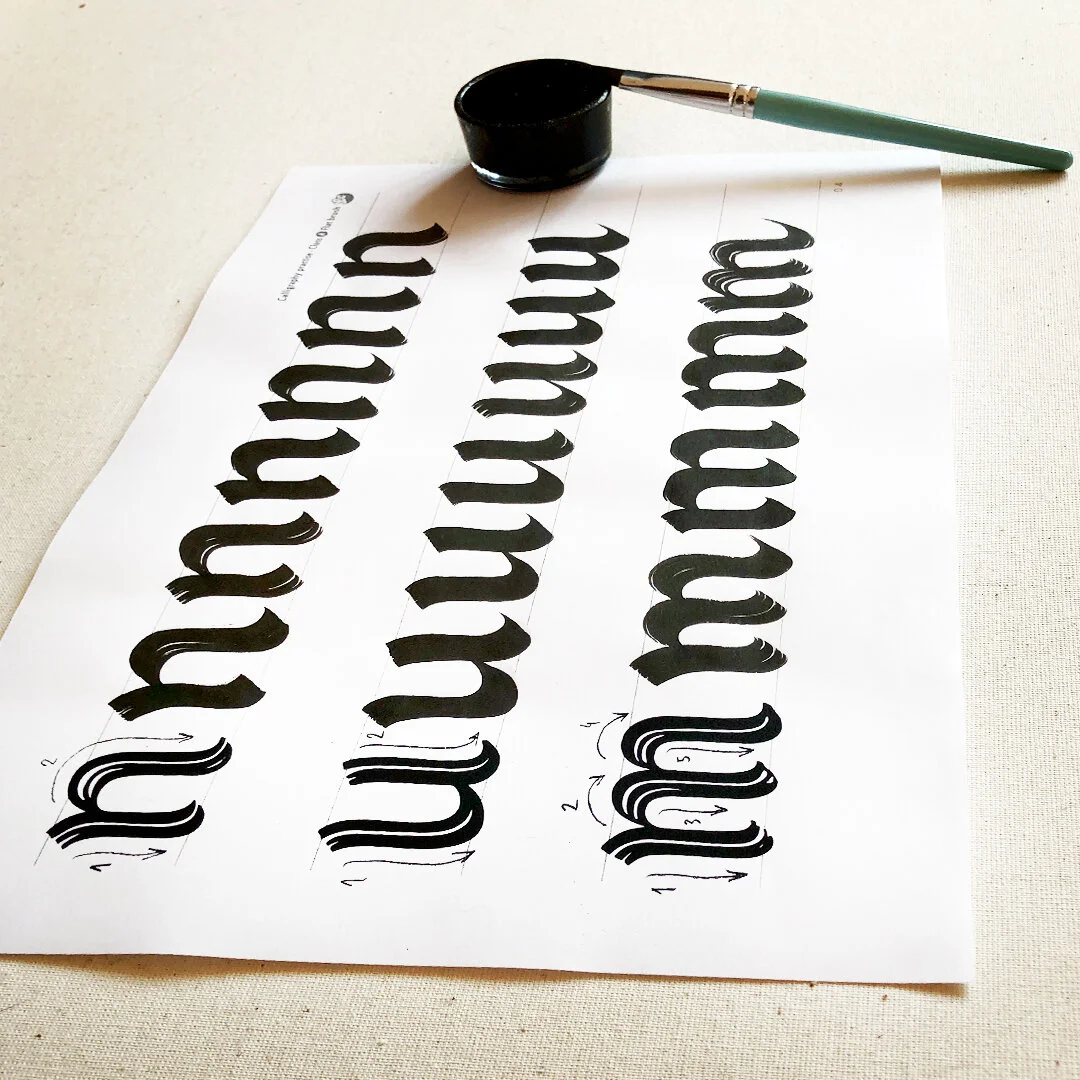
Calligraphy practices
A series of classes suitable for everyone interested in the art of beautiful handwriting and calligraphy.
Class A is free and perfect for beginners who want to learn the basic parameters in typography and the basic lowercase letters of the Latin and Cyrillic alphabet. The calligraphic tool in this class is a flat brush.